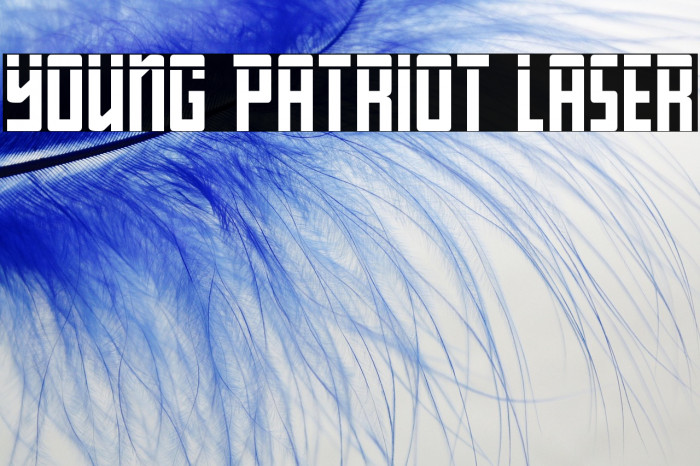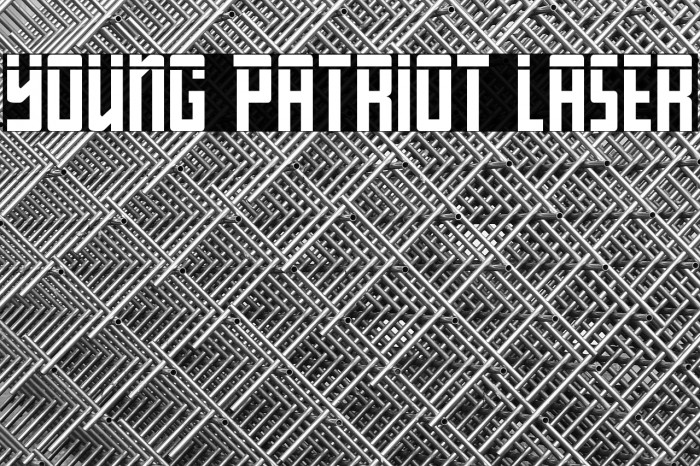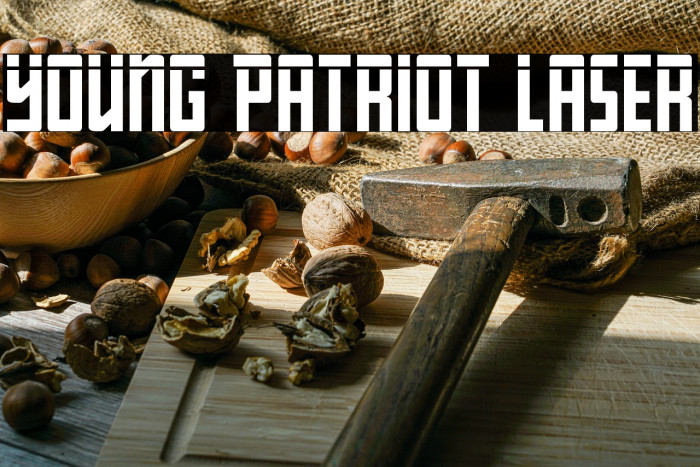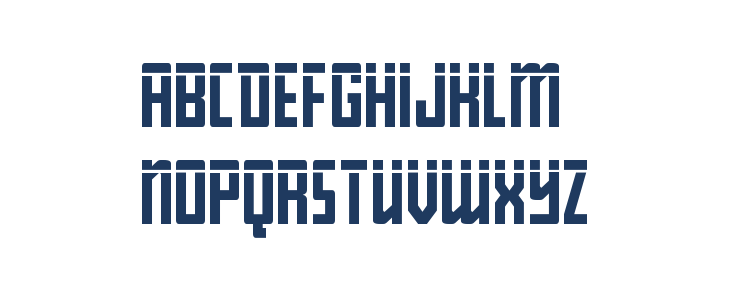
Young Patriot Laser Font
Young Patriot Laser Description
This font features a bold, geometric design with a strong presence. The characters are constructed with straight lines and sharp angles, giving it a futuristic and industrial feel. The uppercase and lowercase letters maintain a consistent height, creating a uniform appearance. The numbers and special characters follow the same design principles, ensuring cohesion across all elements. The font's blocky structure and solid form make it highly legible, even at smaller sizes. Its unique style is both modern and assertive, making it suitable for projects that require a bold statement.
| Proposed Projects | Ideal for branding, posters, video game graphics, and any project needing a strong, modern aesthetic. |